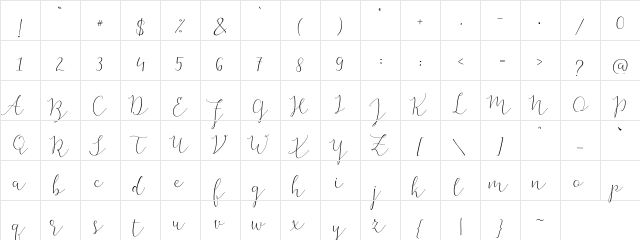
The Bellaria Free Regular
| Foundry | Best Font Studio |
| Designer | Rifan Asri |
Design Context for The Bellaria Free Typeface
The Bellaria Free takes a measured approach to typography — its balanced proportions and neutral character make it a reliable workhorse for both digital and print work.